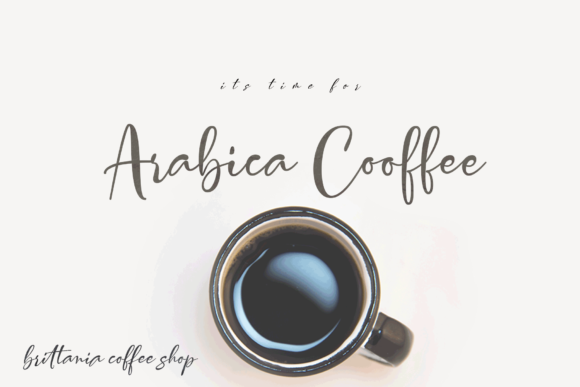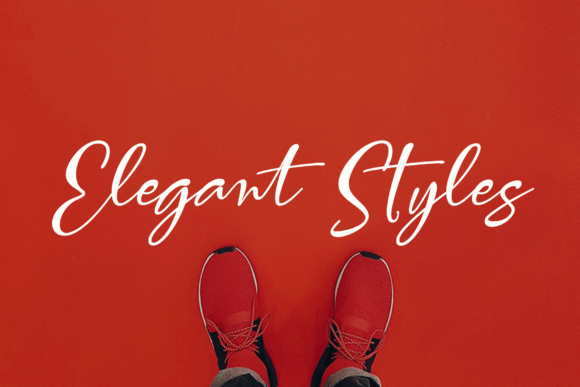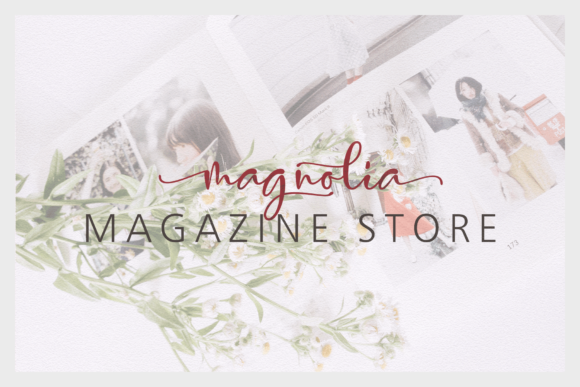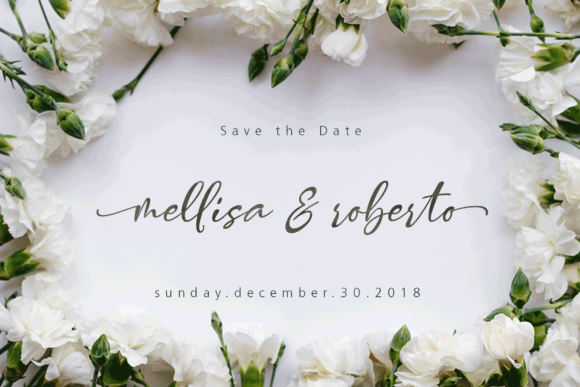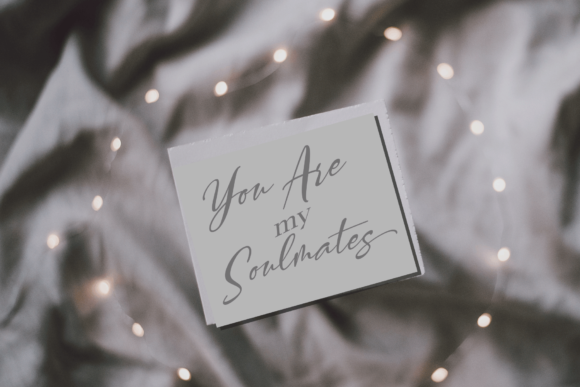
Vettorell Trio Font
About Vettorell Trio Font
The Vettorell is a modern script trio. It includes three unique variations: regular, slant, and super slant. It has a modern style combined with classic calligraphy, which makes it perfect for every design that needs an elegant typeface.